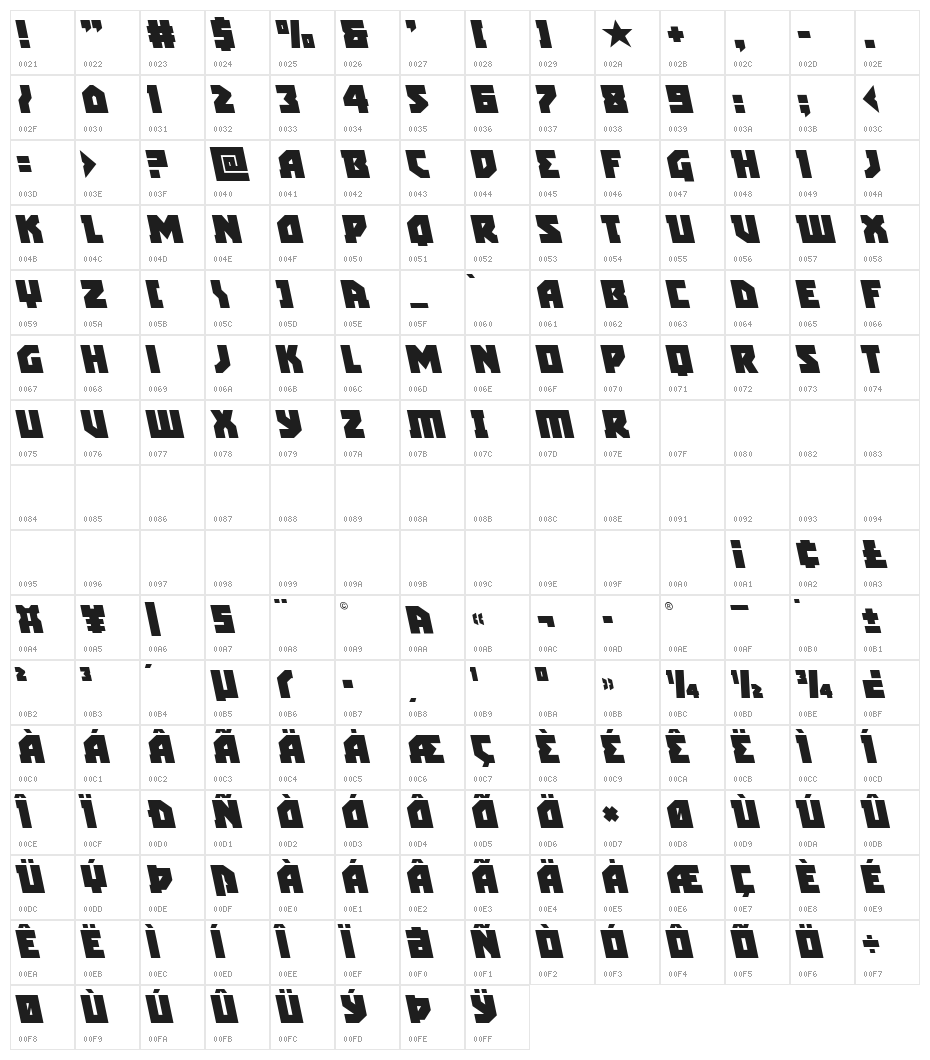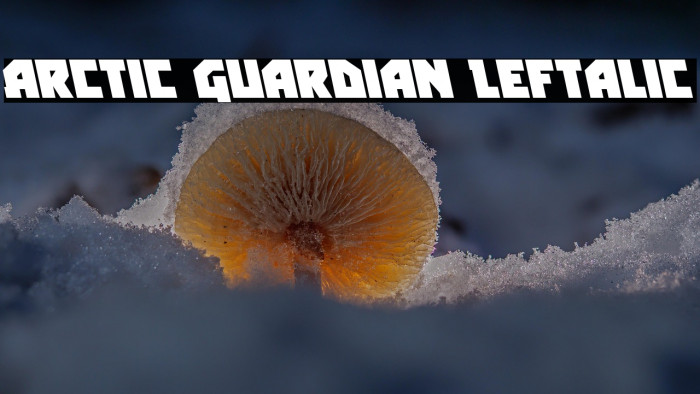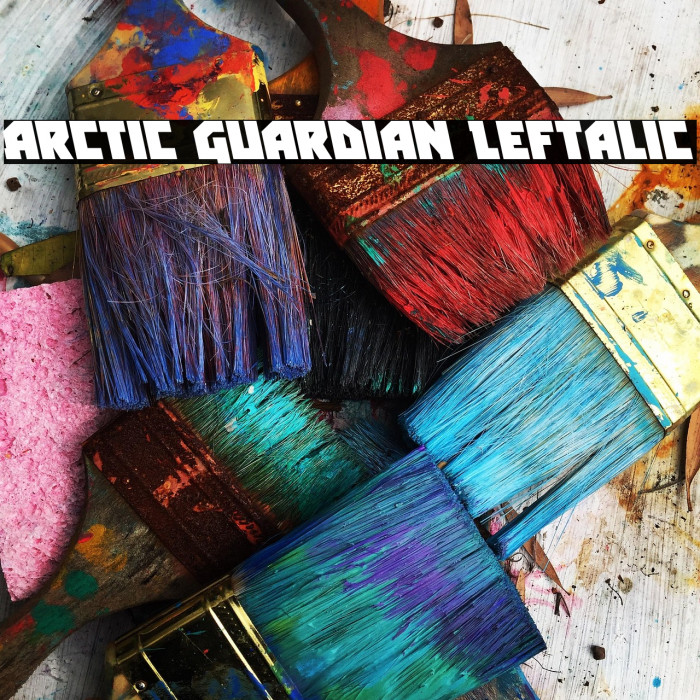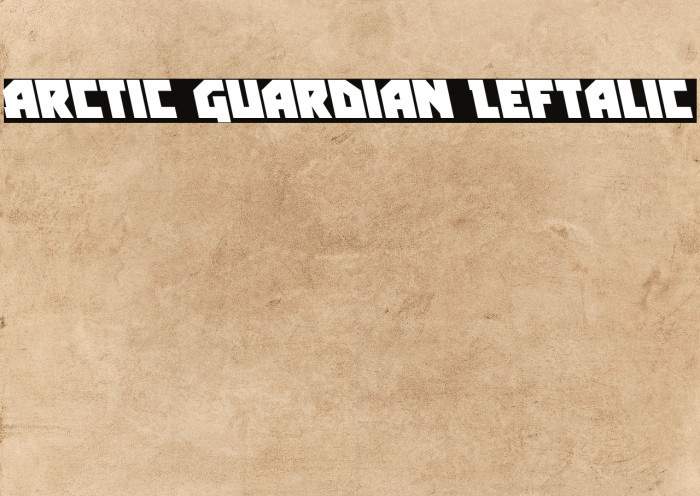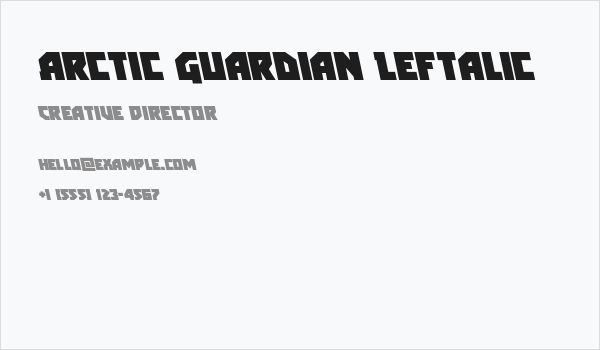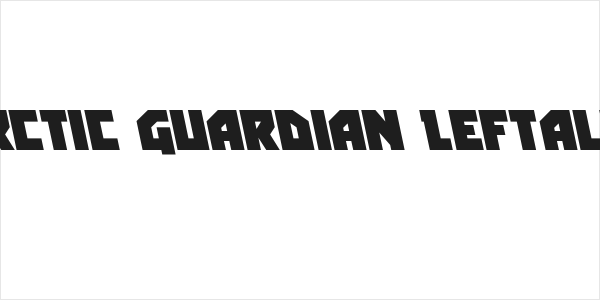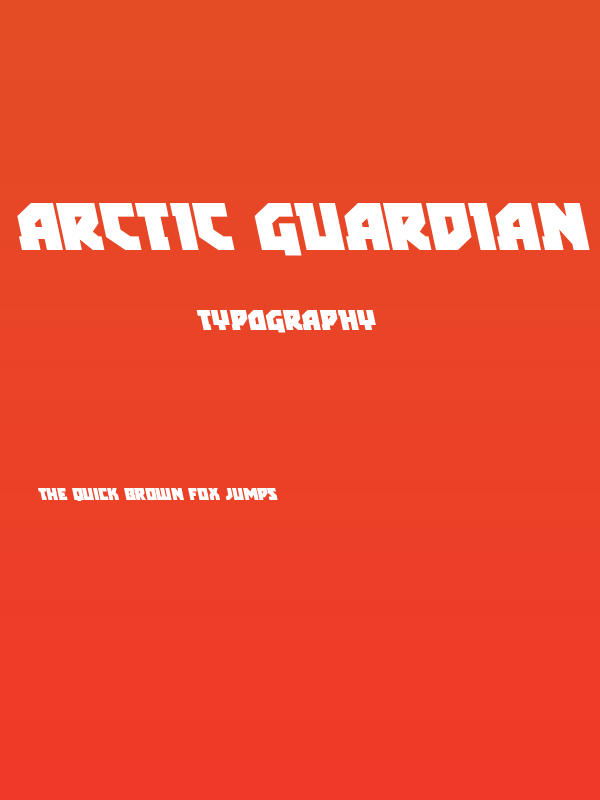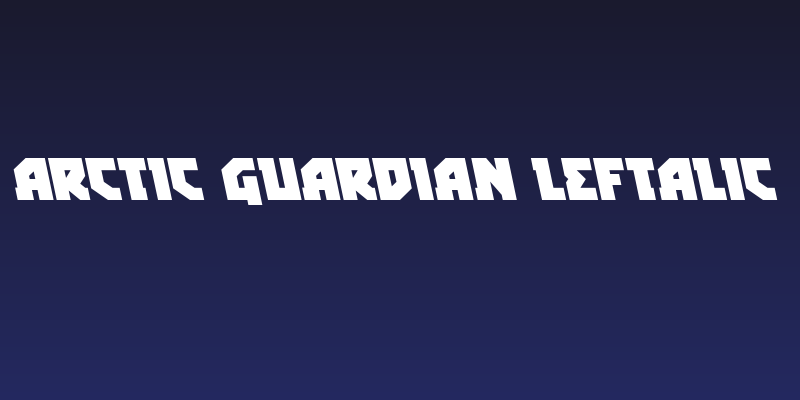
Arctic Guardian Leftalic Font
Arctic Guardian Leftalic Description
This font features a bold and angular design with a strong geometric influence. Each character is crafted with sharp edges and a distinct slant, giving it a dynamic and aggressive appearance. The uppercase and lowercase letters maintain a consistent style, emphasizing a sense of uniformity and strength. Numbers and special characters follow the same bold and angular theme, ensuring a cohesive look across all text elements. The font's unique style makes it stand out, suitable for projects that require a strong visual impact.